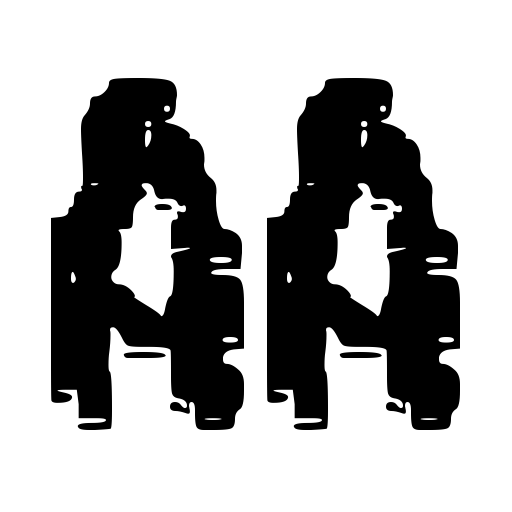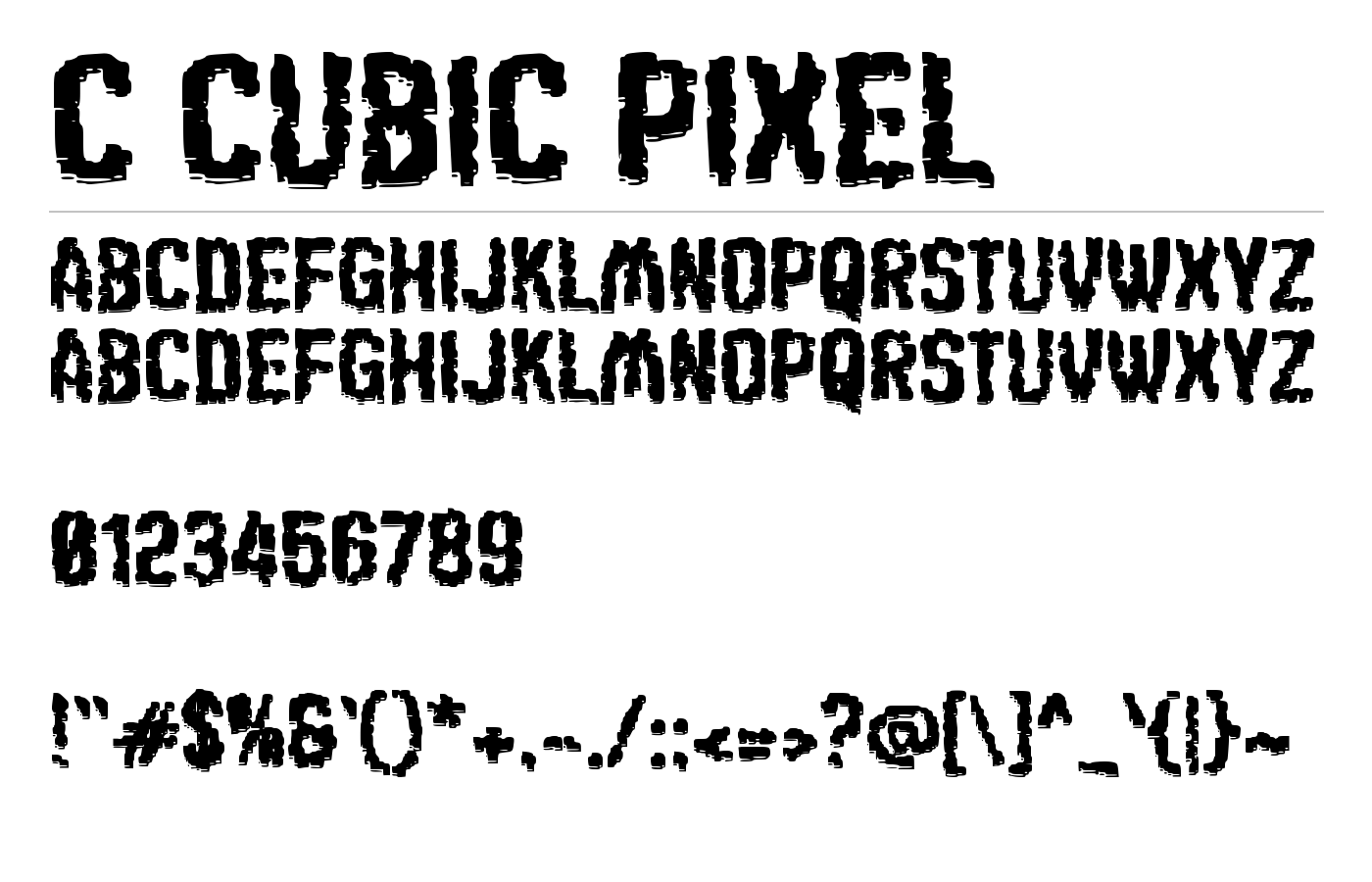
C Cubic Pixel is a bold, condensed sans serif font with a distinctive pixelated, distressed texture that creates a digital, retro-futuristic vibe. Its strong, blocky letterforms and irregular edges evoke a techy, glitchy aesthetic perfect for eye-catching headlines, gaming, and digital-themed designs. This font works best in creative branding, posters, and editorial contexts where a gritty, modern look is desired.
c Cubic Pixel Font
About c Cubic Pixel Font